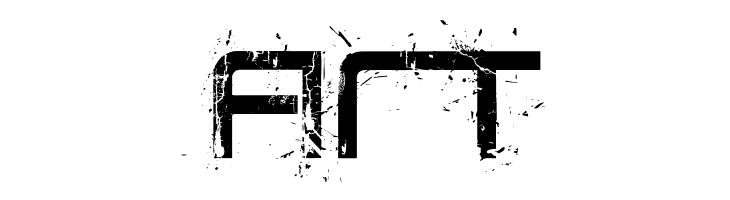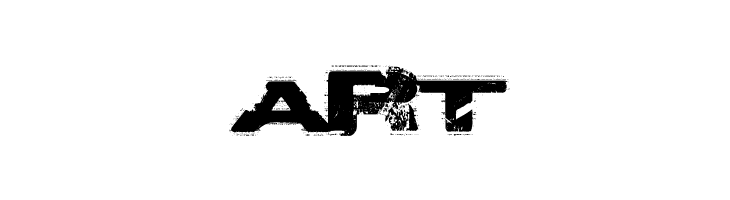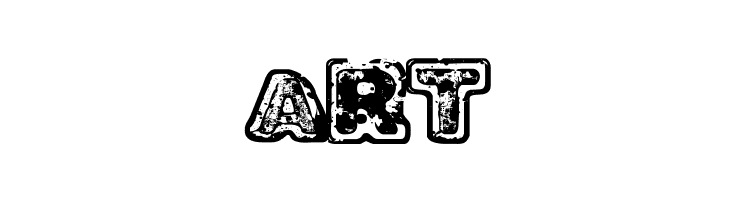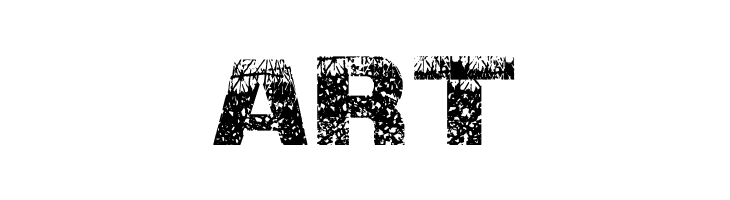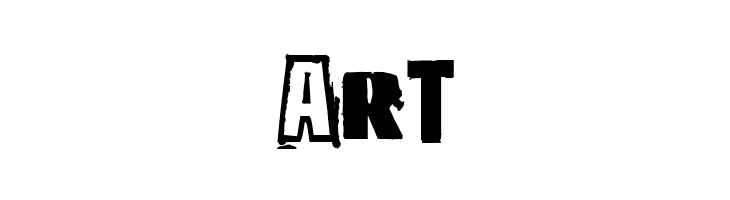
A bold, grunge-style font with a distressed, textured appearance.
A bold, distressed font with a grunge, textured appearance.
A bold, distressed font with a grunge aesthetic, perfect for impactful designs.
A bold, distressed font with a grunge aesthetic and textured edges.
A bold, distressed font with a grunge, weathered appearance.
A bold, distressed font with a vintage, grunge style.
A bold, distressed font with a grunge, hand-drawn style.
A bold, distressed font with a grunge and urban aesthetic.